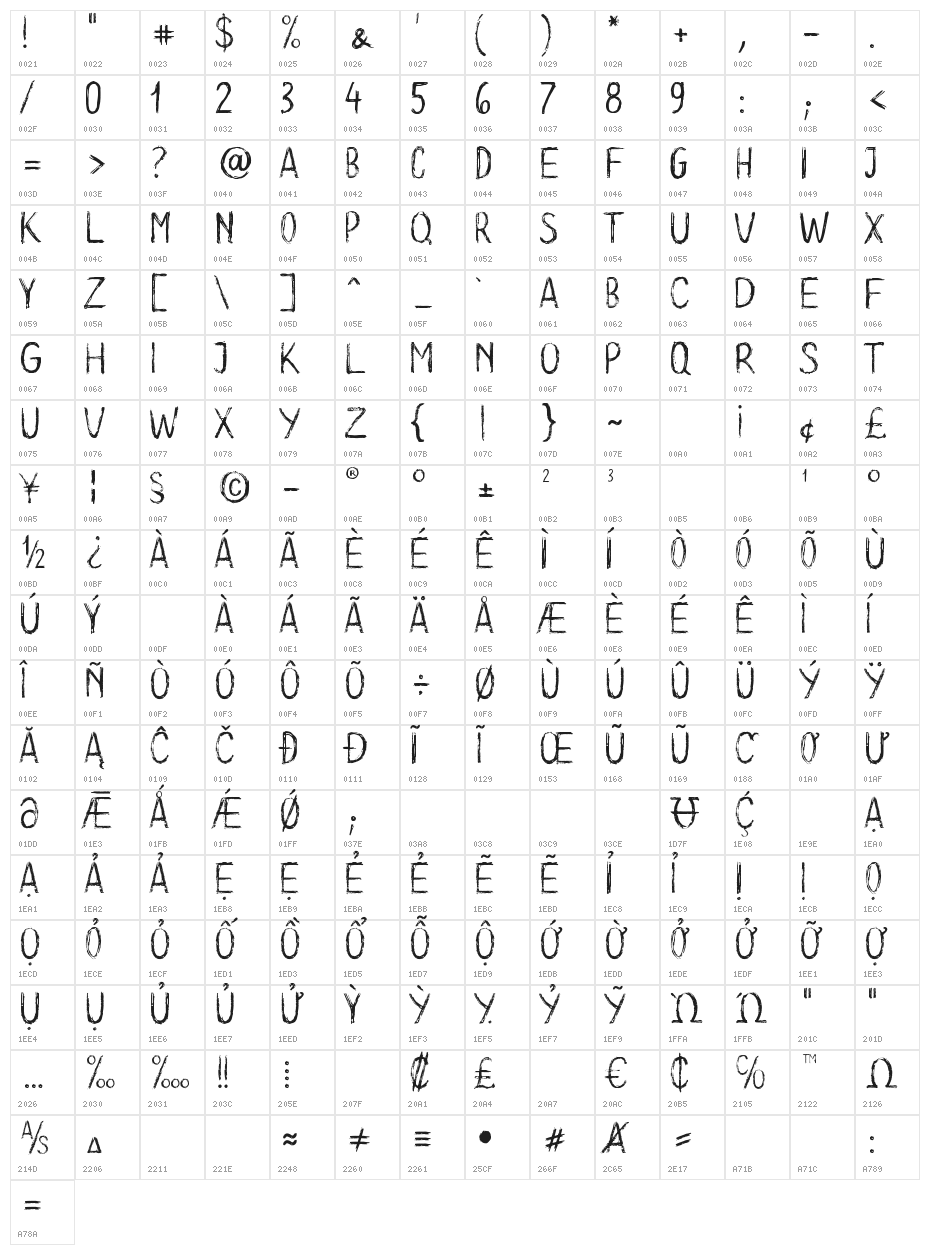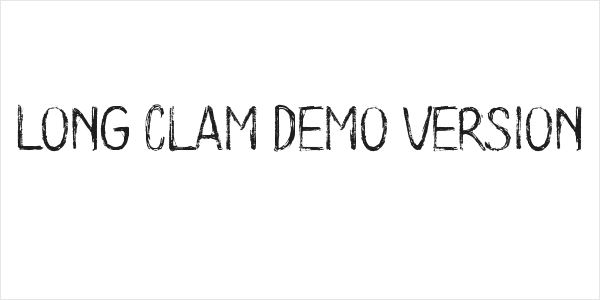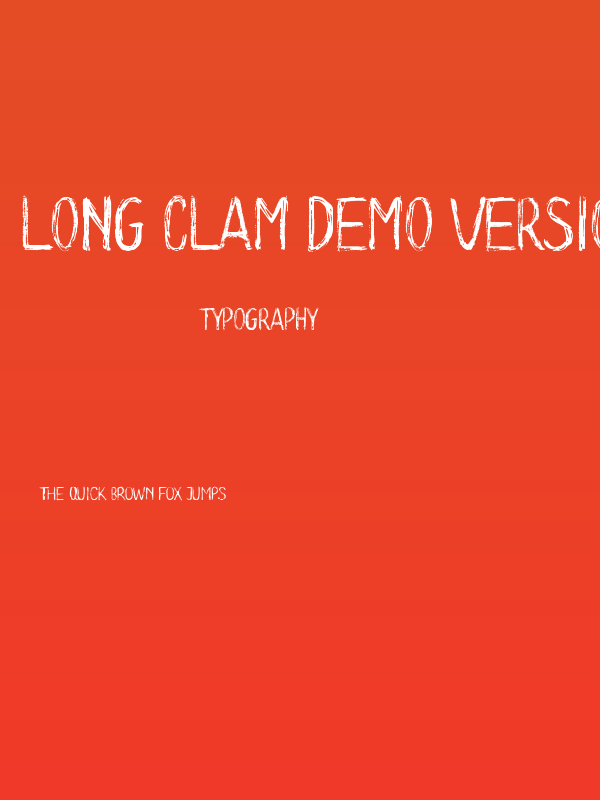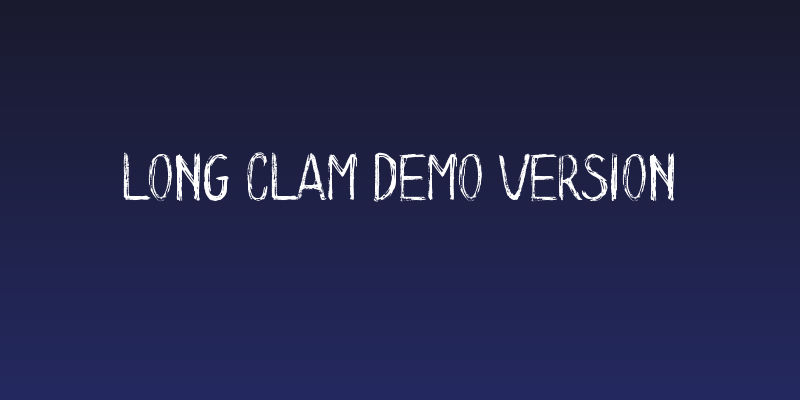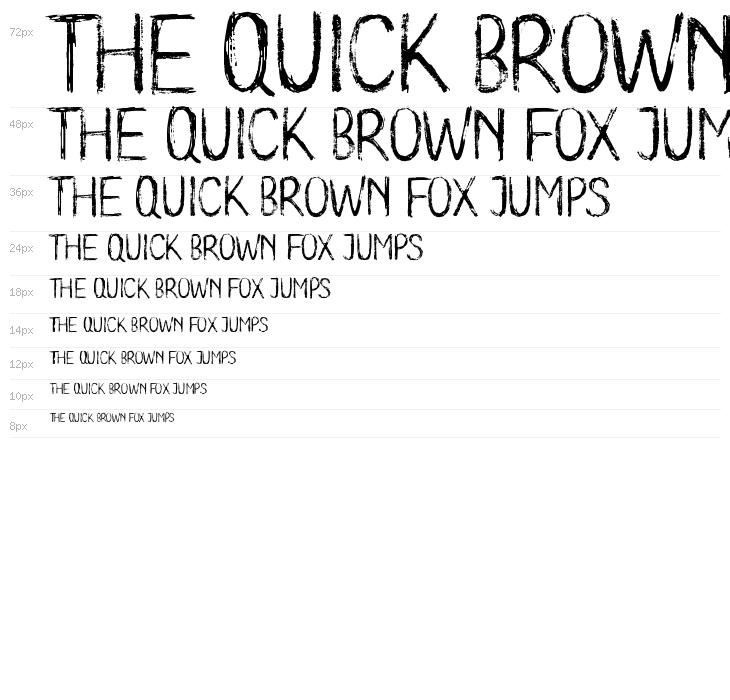
Long Clam Demo Version Font
Long Clam Demo Version Description
This font features a distressed, hand-drawn style that gives it a raw and edgy appearance. The characters are bold and slightly irregular, with a textured look that suggests they were created with a brush or marker. The uppercase and lowercase letters maintain a consistent style, with a playful yet rugged aesthetic. The numbers and special characters follow the same design, ensuring a cohesive look across all elements. This font is ideal for projects that require a bold statement or a creative, artistic touch.
| Proposed Projects | Perfect for posters, album covers, branding for edgy or artistic products, and any design needing a bold, creative flair. |